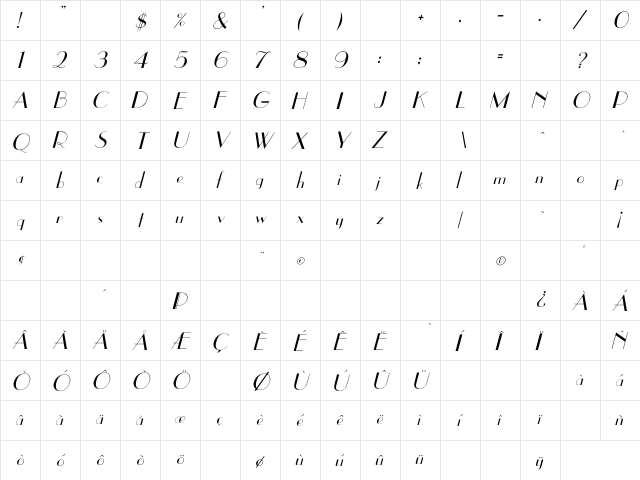
UppEa Italic Regular
Design Context for UppEa Italic Typeface
UppEa Italic is a composed and adaptable typeface that performs quietly and consistently across a wide range of design contexts. The slanted form adds forward momentum and visual energy.
Pro Tip: Use UppEa Italic for emphasis, pull quotes, and subheadings where its slanted energy can add rhythm to the layout.